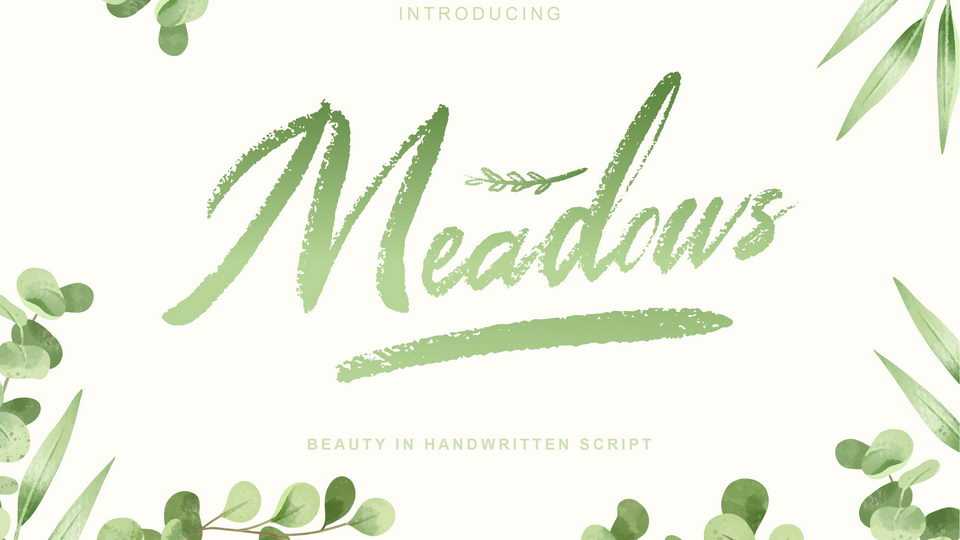
Download Meadows font, a rough brush hand lettered script. The playful textured characters make Meadow the perfect font for creating stunning calligraphy art.